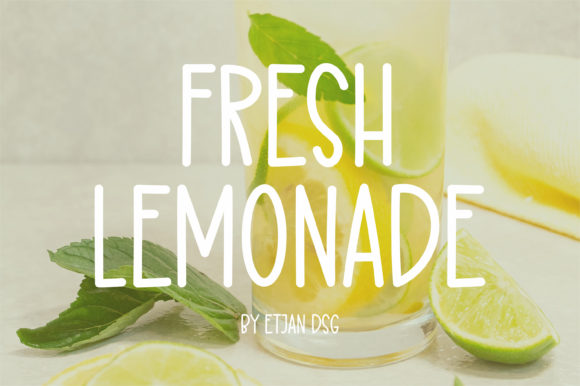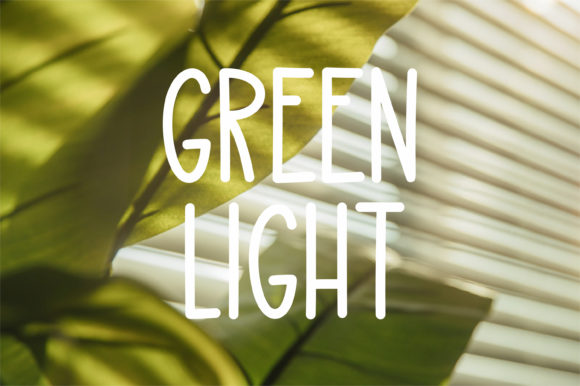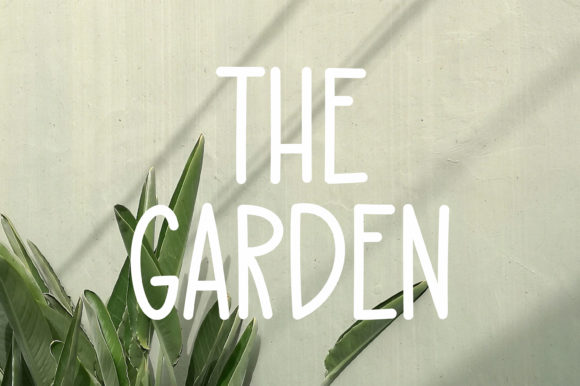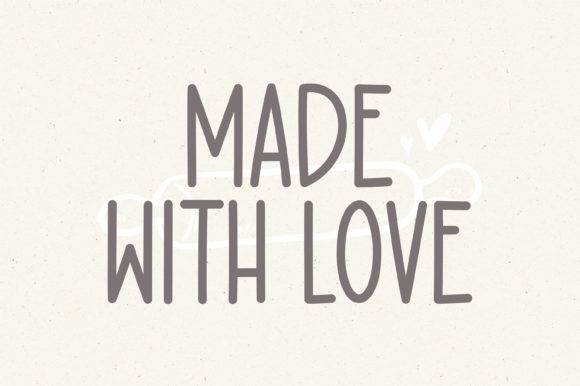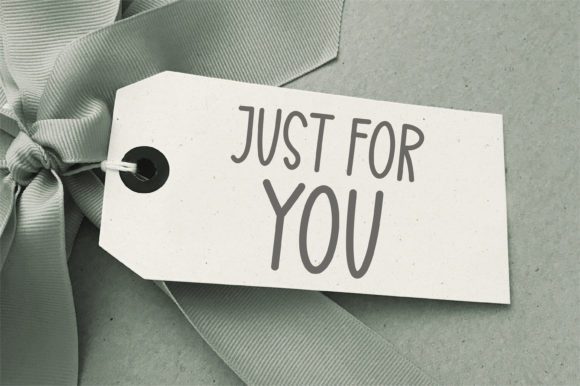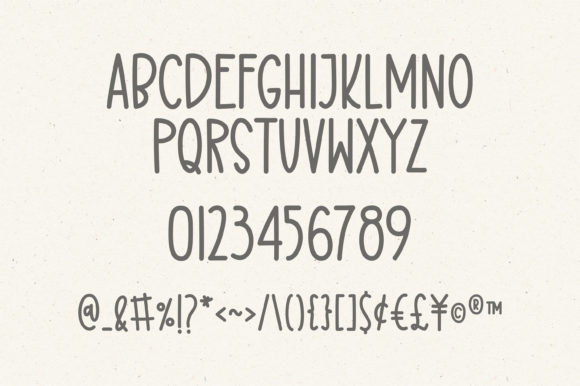
Fresh Lemonade Font
Fresh Lemonade is a tall handwritten font. It is suitable for svg designs, mug decorations, pottery, shirts, hats, tote bags, card making, wall art, interior prints, and various other creations. Whatever the topic, this font will be a wonderful asset to your font library, as it has the potential to enhance any creation.